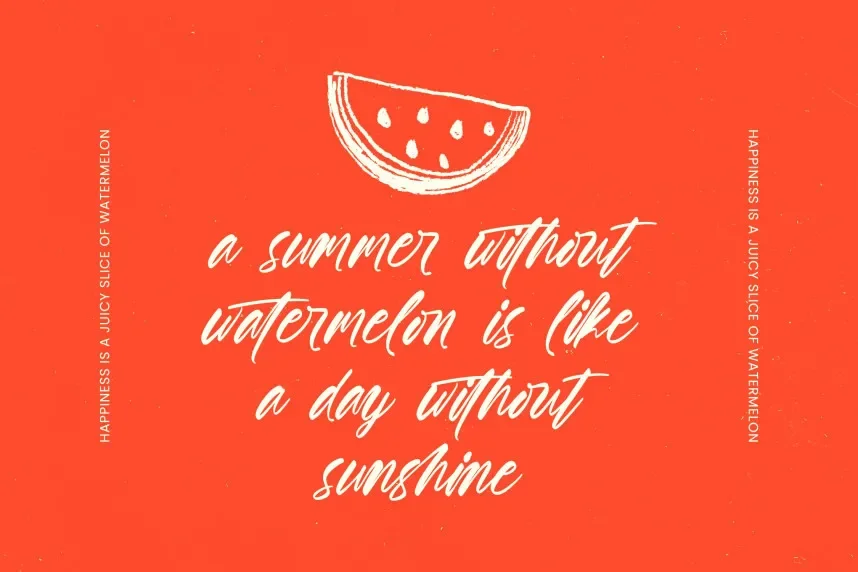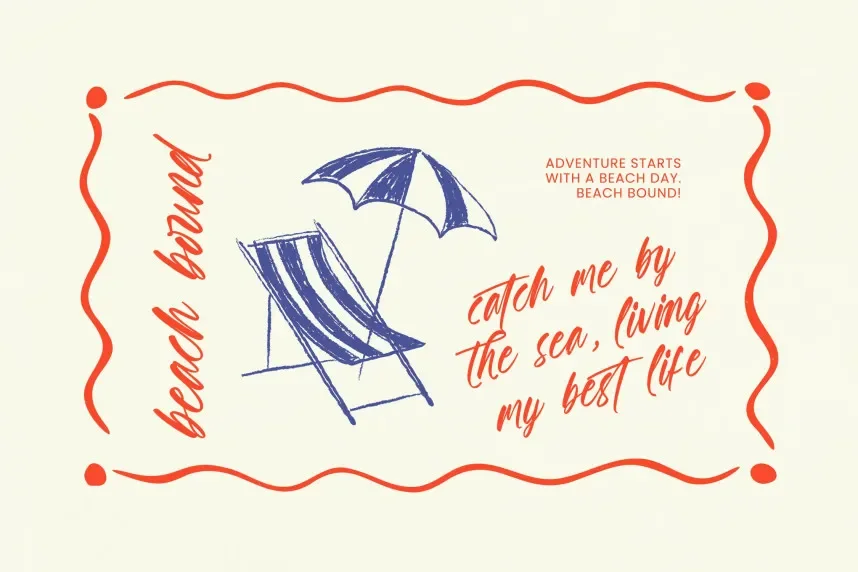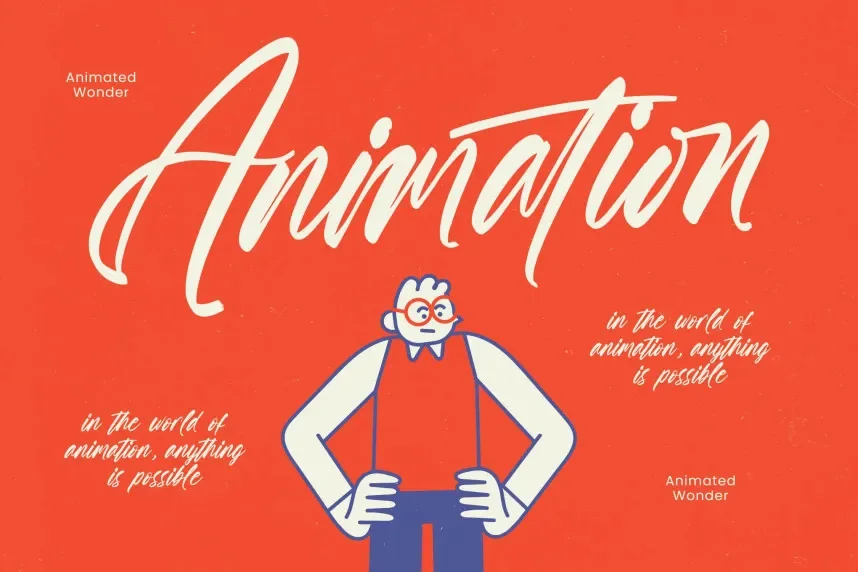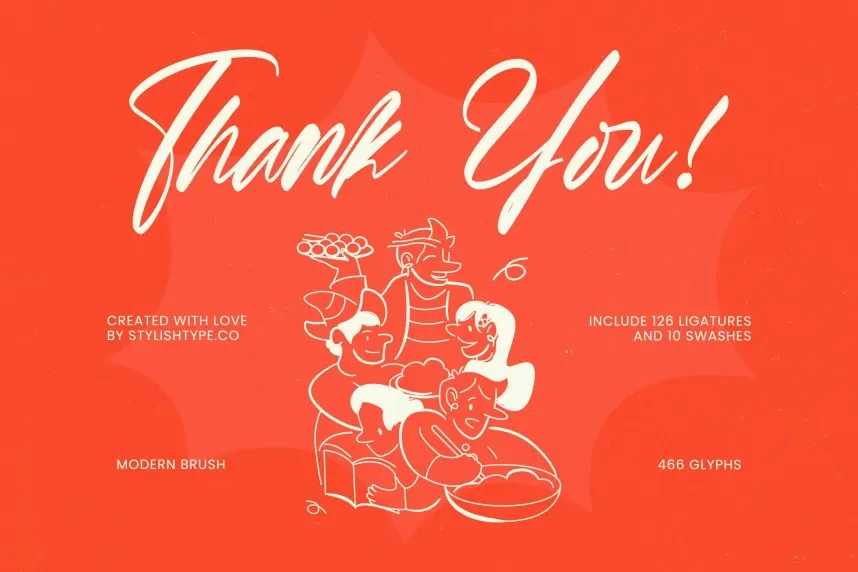
Sutter Youth Font is a modern brush script typeface designed to capture a sense of youthful energy and artistic flair. Its bold strokes and fluid letterforms make it ideal for casual branding, creative marketing, and social media designs that need a hand-painted feel.